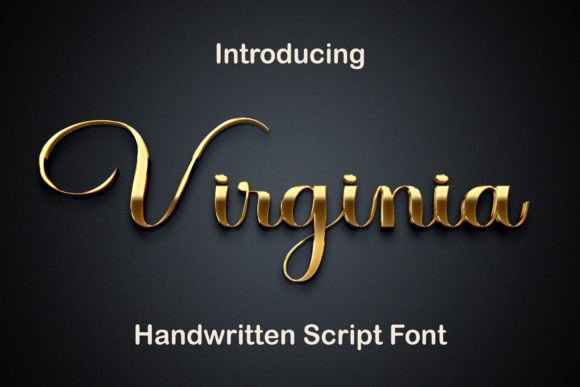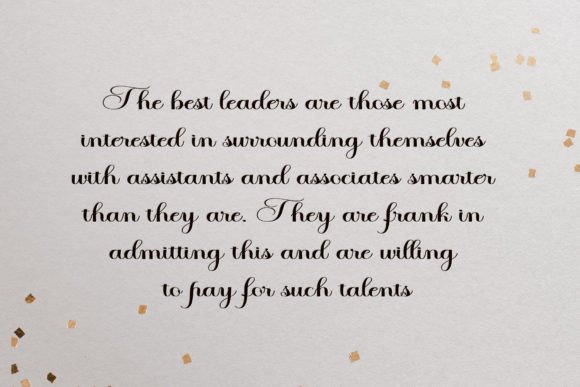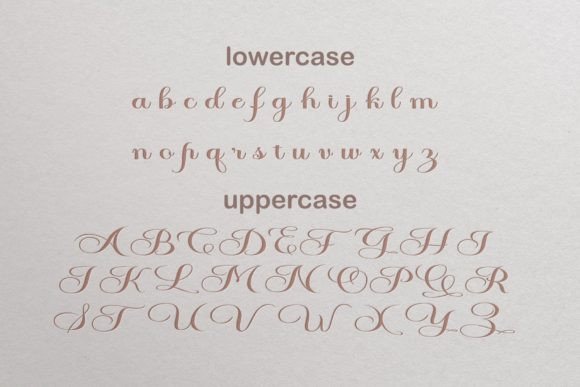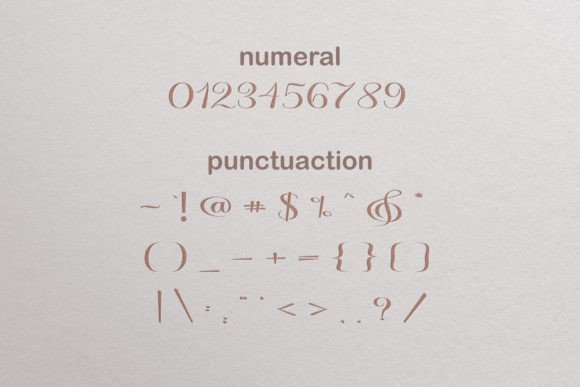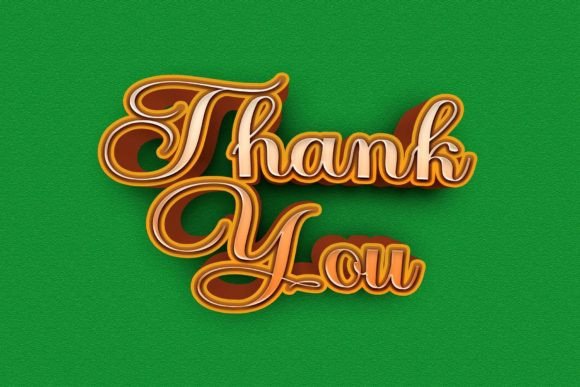
About Virginia Font
Virginia is a beautiful and light handwritten font that blends elegance with a unique personal touch. Each letter flows with gentle curves and airy lines that make your designs feel special and refined. Whether you are working on branding, event invitations, or personal projects, Virginia adds a luxury spark that instantly elevates your work.
A Light and Elegant Style
The magic of Virginia lies in its graceful strokes and balanced shapes. This font feels both modern and timeless. It brings a handwritten charm that feels authentic but never messy.
Virginia’s clean lines and subtle curves help you create a professional yet warm look. Every letter feels like it was drawn with care, making your text look polished and inviting.
Perfect for Many Design Projects
Virginia’s versatility shines across a wide range of creative uses:
Wedding Invitations: Add a touch of romance and sophistication to your special day.
Branding: Create logos and packaging that feel fresh, stylish, and memorable.
Social Media: Use Virginia to make posts, stories, and pins that catch the eye and feel approachable.
Stationery: Design beautiful letterhead, thank-you cards, and personal notes with a unique handwritten flair.
Quotes and Prints: Make inspirational wall art and posters that stand out with graceful lettering.
Product Labels: Give handmade items or luxury products an elegant and personal look.
No matter the project, Virginia brings a distinctive feel that helps your ideas shine.
Tips for Designing with Virginia
Here are a few ideas to help you get the most out of this font:
Pair It With Simplicity: Combine Virginia with a clean serif or sans serif for contrast.
Choose Soft Colors: Light pastels and neutral tones look beautiful with Virginia’s delicate lines.
Add Whitespace: Let your design breathe to showcase the font’s elegance.
Use Subtle Effects: A slight texture or foil finish can make Virginia feel extra special.
Keep It Balanced: Use moderate line spacing so the letters remain clear and readable.
Why Designers Love Virginia
Designers love Virginia because it feels refined and approachable at the same time. It’s light, fresh, and never overpowers your layout.
This font works beautifully for both large headlines and small accents. Every project feels more polished when you include Virginia in your design toolkit.
Whether you’re creating branding for a boutique business or a simple thank-you card, Virginia helps your work feel stylish and heartfelt.
Embrace the beauty and versatility of Virginia. Let it inspire your creativity and help you craft designs that leave a lasting impression.